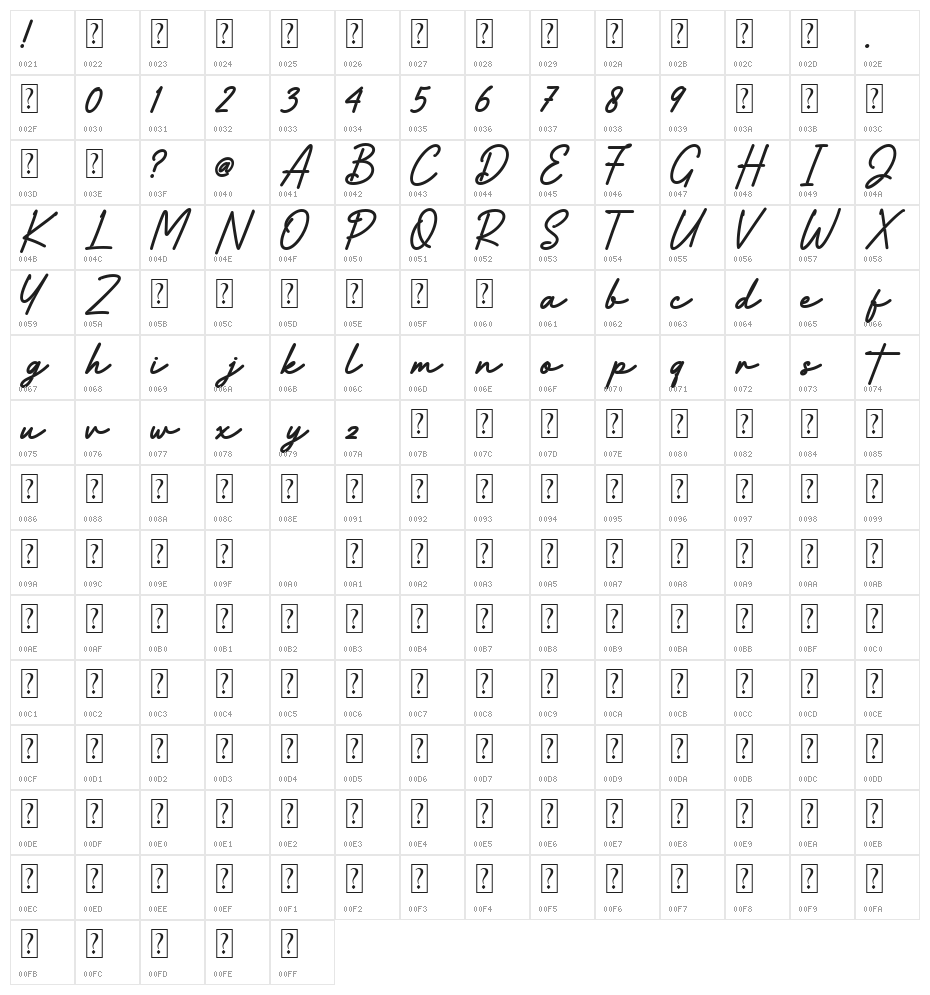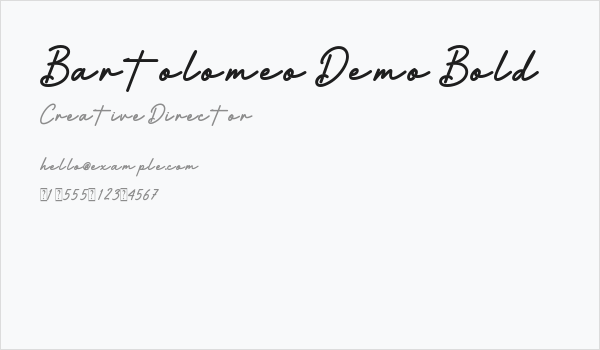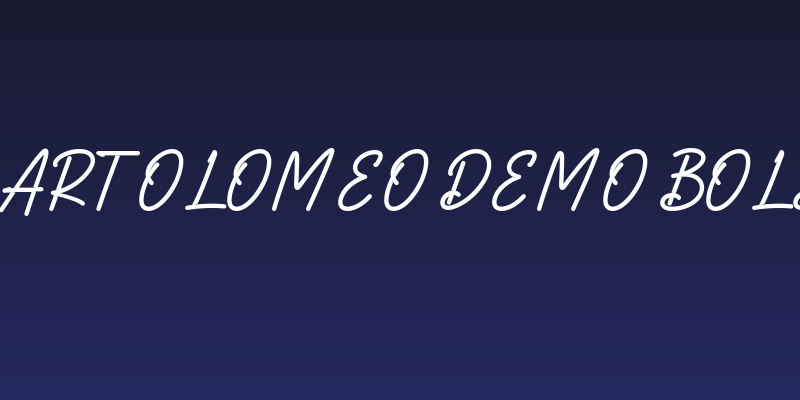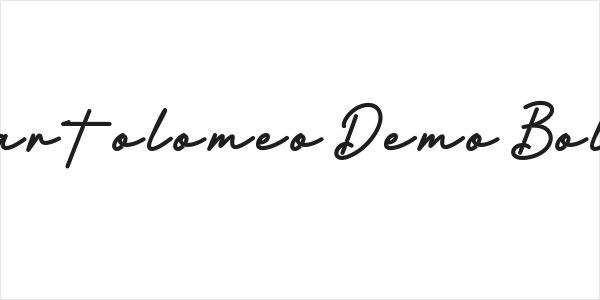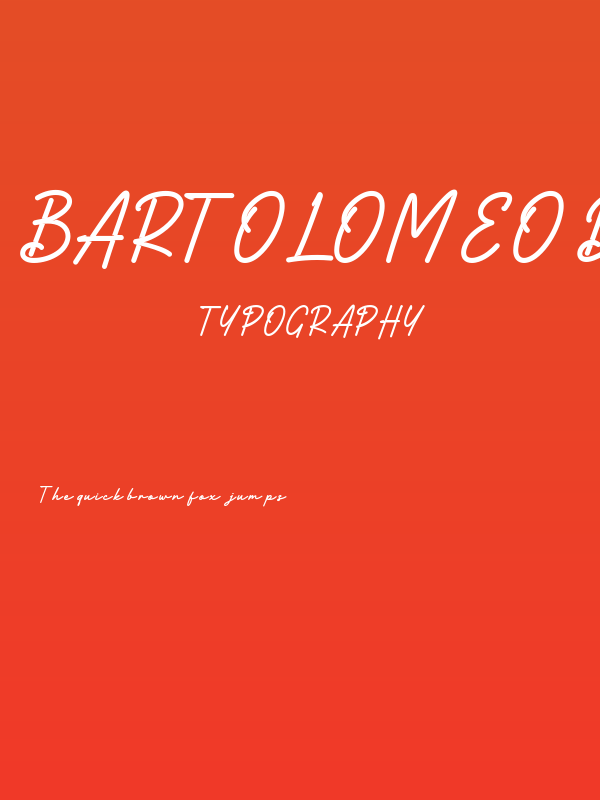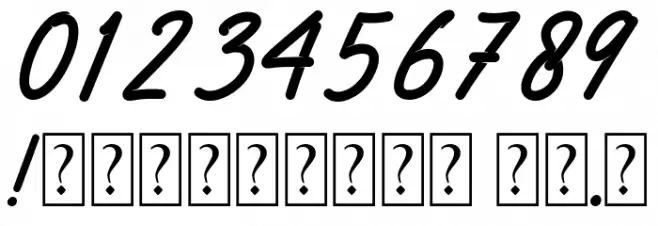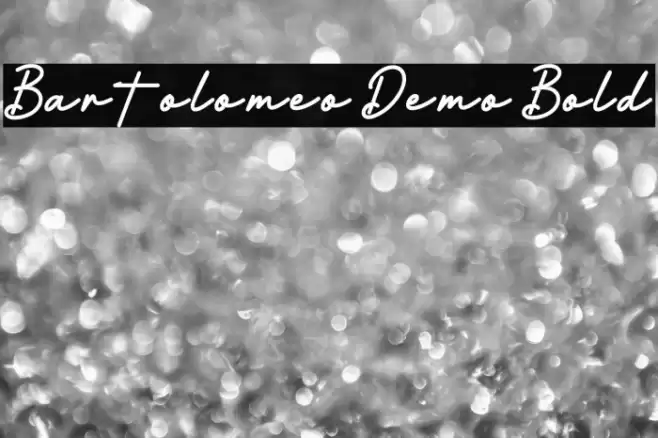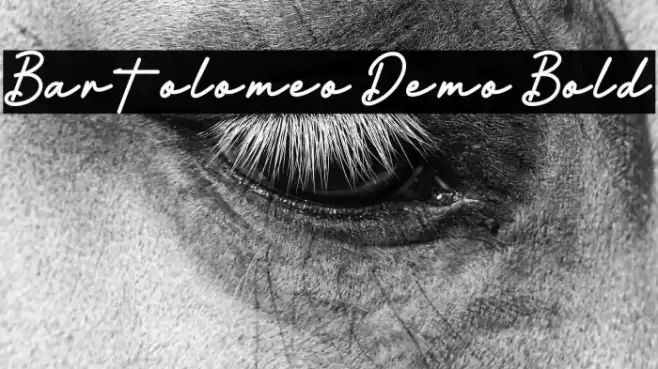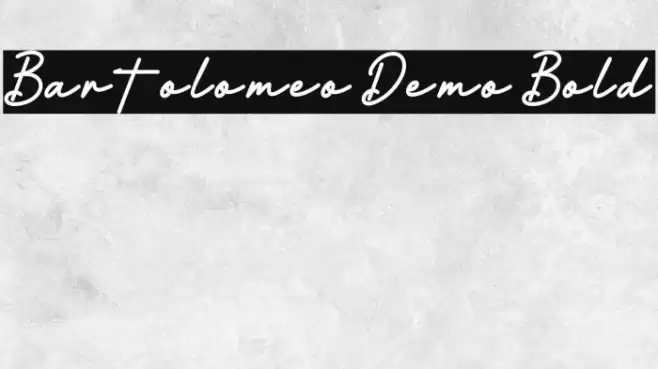
Bartolomeo Demo Bold Font
Bartolomeo Demo Bold Description
This font exudes a modern and elegant script style, characterized by smooth, flowing lines and a handwritten appearance. The uppercase letters are bold and slightly slanted, giving a dynamic and lively feel. The lowercase letters maintain a consistent flow, enhancing readability while retaining a personal touch. Numbers are clear and well-defined, matching the overall aesthetic. Special characters are included, maintaining the same stylistic features, ensuring versatility in various design contexts. The font's boldness and smooth curves make it suitable for projects requiring a personal, yet professional touch.